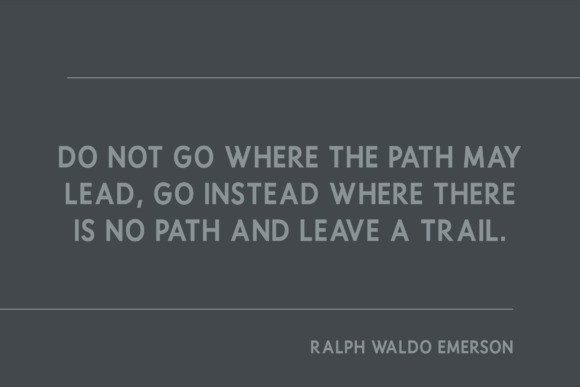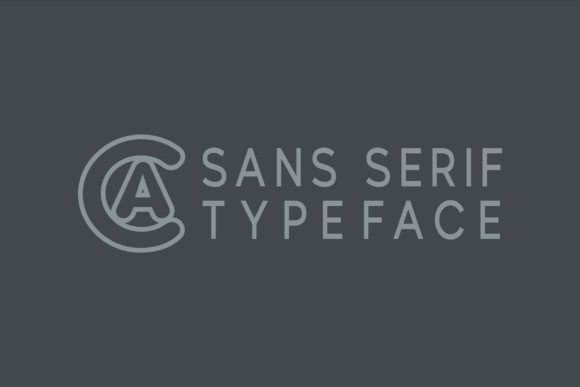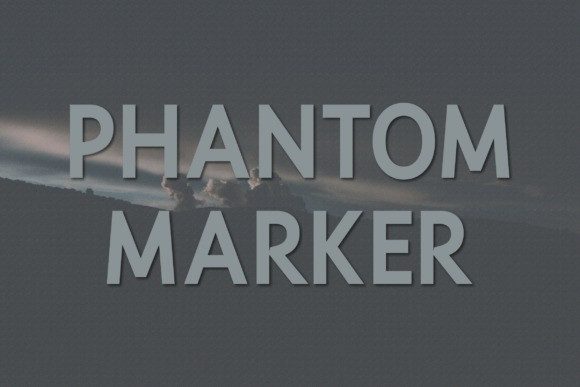
Phantom Marker Font
Phantom Marker Font, a modern, classy sans serif typeface. A sans serif typeface that contains upper characters, number 0-9 and a range of punctuation and symbols. An extremely versatile font, perfect for logos, weddings, invitations, quotes, advertisements, print, magazines, and more!